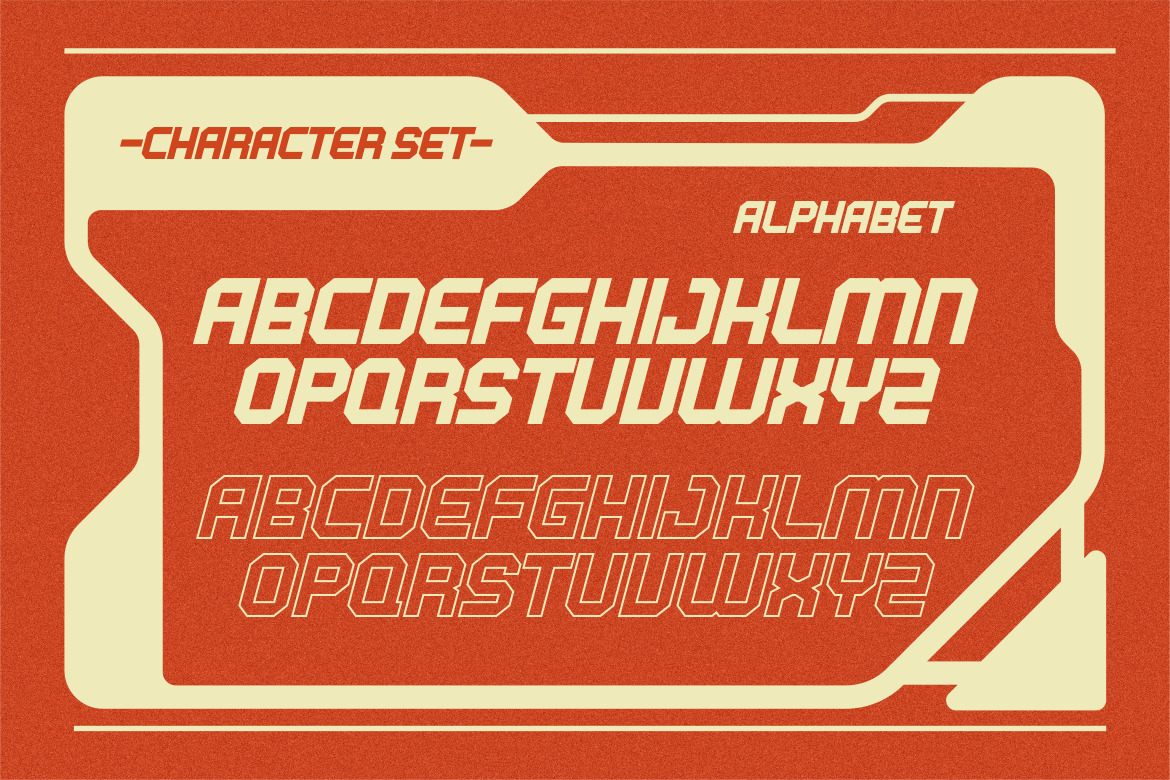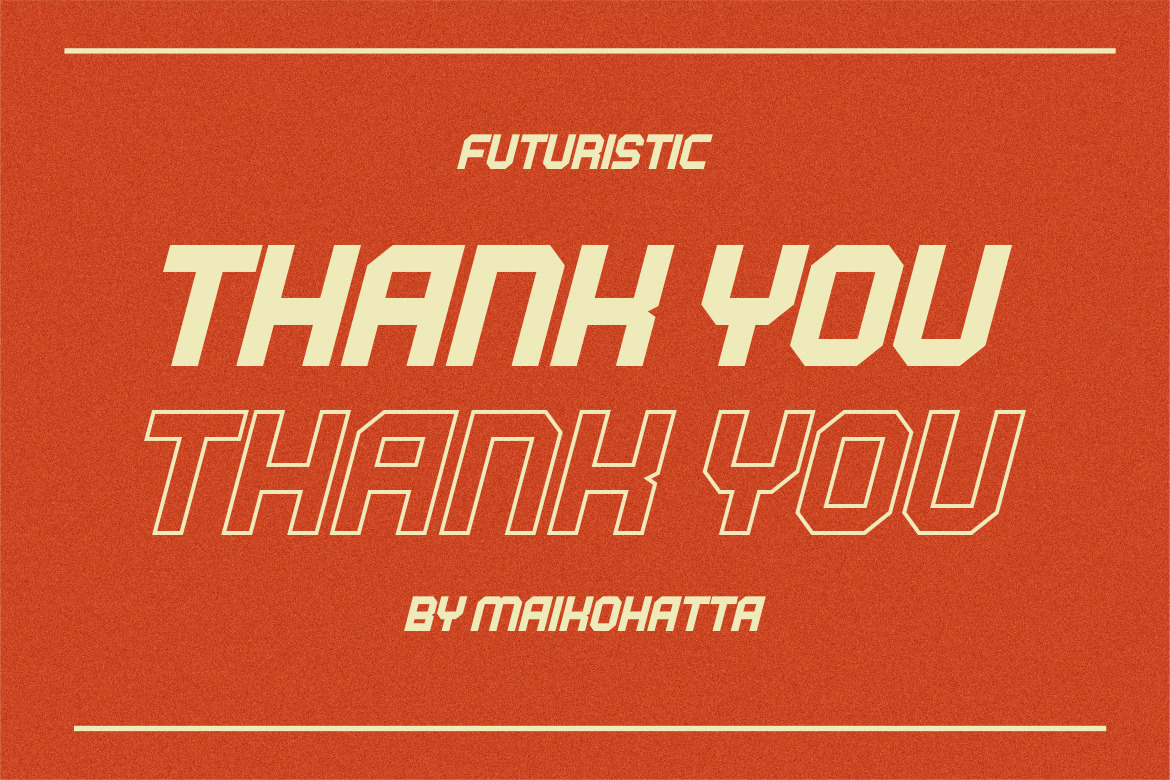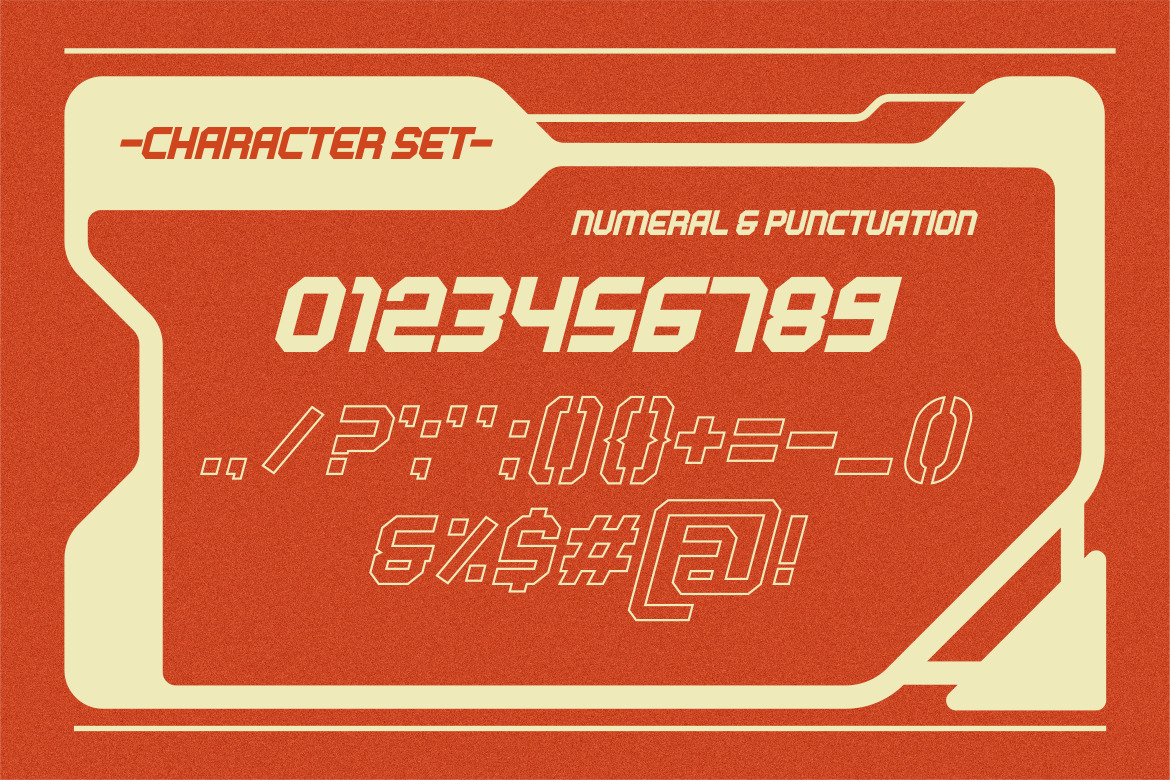
BEAT TECH FONT
Introducing our new product **BEAT TECH** - Modern Techno Typeface
**BEAT TECH** is a type of lettering that features a futuristic design inspired by advanced technology. This font reflects the digital era and technological advancements, bringing a sense of modernity, innovation, and energy to any design. With sharp lines, geometric letter shapes, and futuristic elements, this font is suitable for projects related to technology, robotics, science, and modern lifestyle. This font are often found in logos, website designs, posters, and other creative projects that require a futuristic touch.
* Uppercase
**Style**
* Reguler
* Line